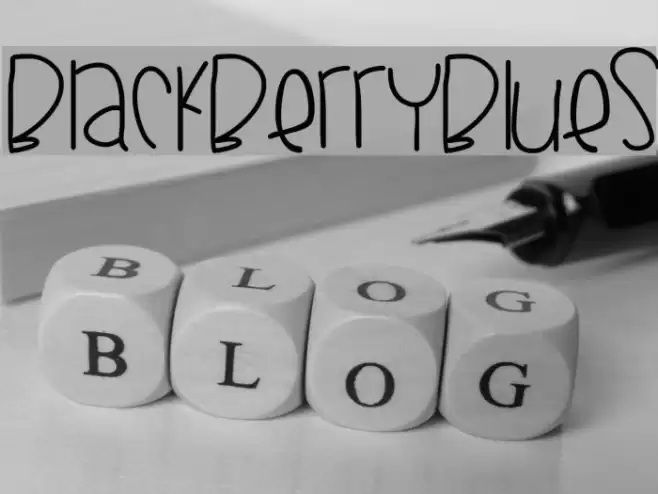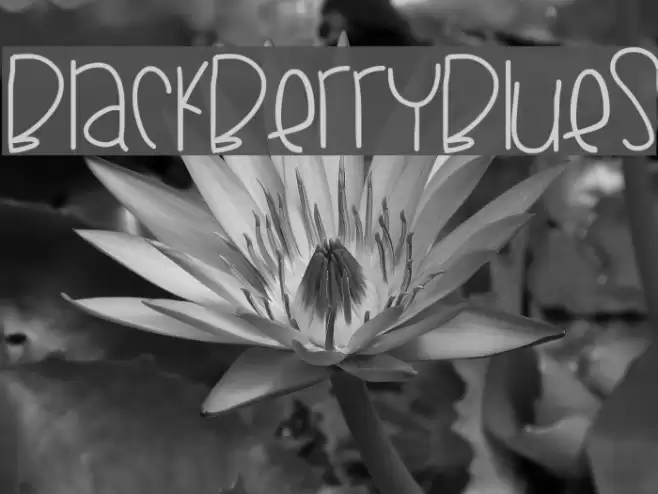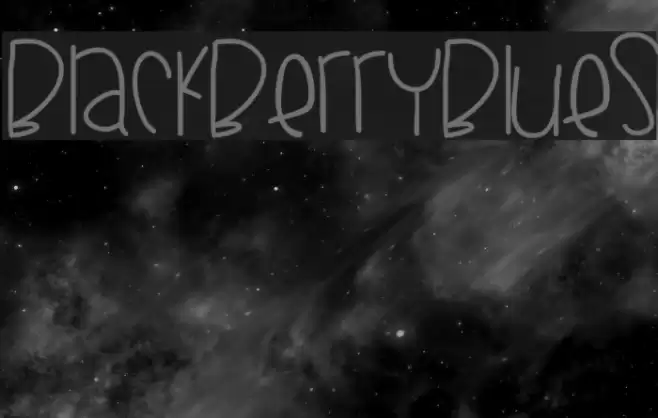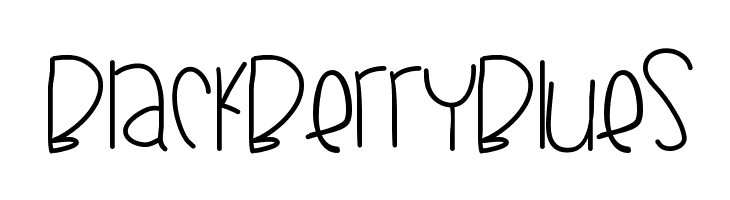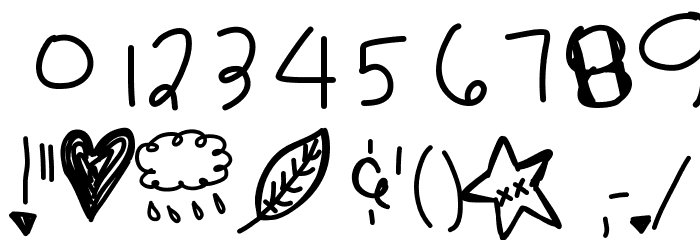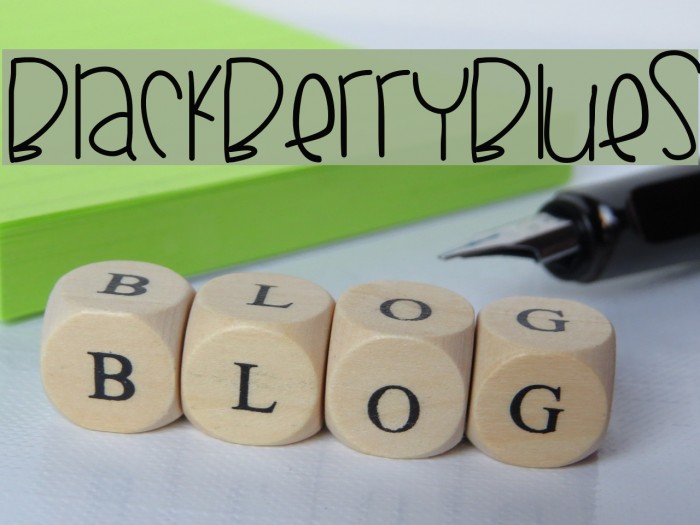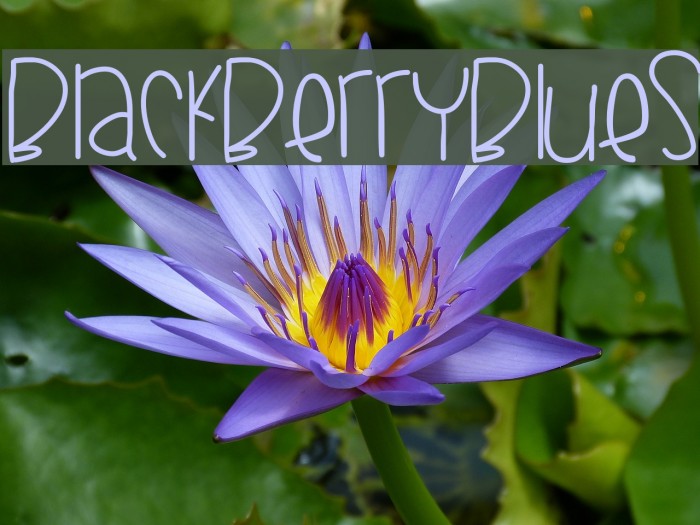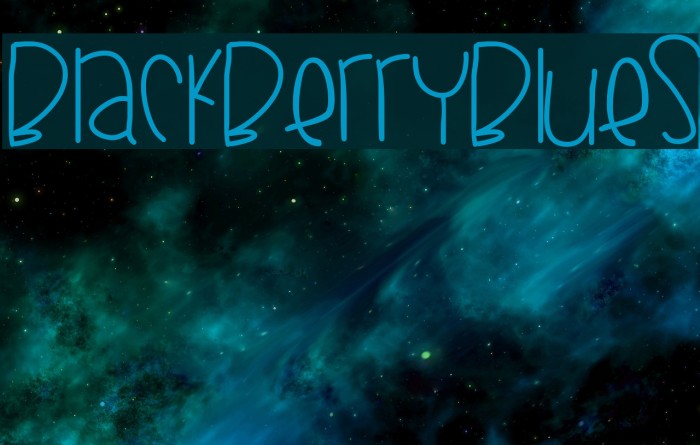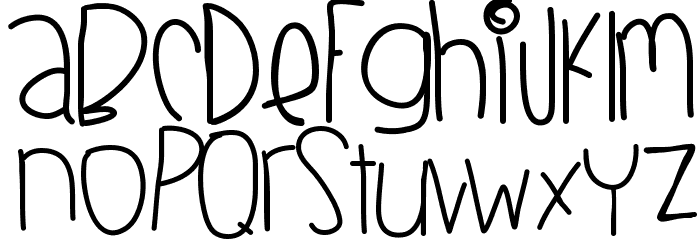
BlackberryBlues Font
BlackberryBlues Description
This playful and whimsical font features a handwritten style with irregular, organic shapes. The characters are tall and narrow, with a casual and informal appearance. The strokes are uneven, adding a sense of spontaneity and creativity. The font includes both uppercase and lowercase letters, numerals, and a variety of special characters, each maintaining the quirky and artistic feel. The overall design is reminiscent of doodles or sketches, making it ideal for projects that require a fun and lighthearted touch.
A playful, handwritten font with a whimsical and doodle-like style from Uncategorized fonts.
- Proposed Projects: Ideal for children's books, greeting cards, playful branding, and creative posters.
- Use Case: Logos, Posters, Creative projects